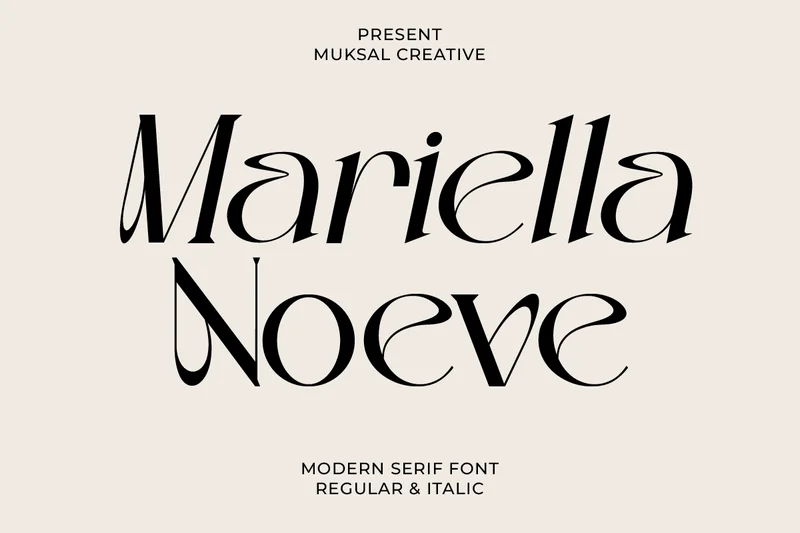
Mariella Noeve – Modern Serif
Mariella Noeve is a modern serif typeface designed with elegance and distinct personality in mind. With graceful curves, refined contrasts and clean letterforms, this font is ideal for branding, editorial headlines, premium packaging and sophisticated digital use. The typeface supports both regular and italic styles, includes uppercase & lowercase letters, numerals & punctuation, and full multilingual support — making it versatile for both print and web applications.